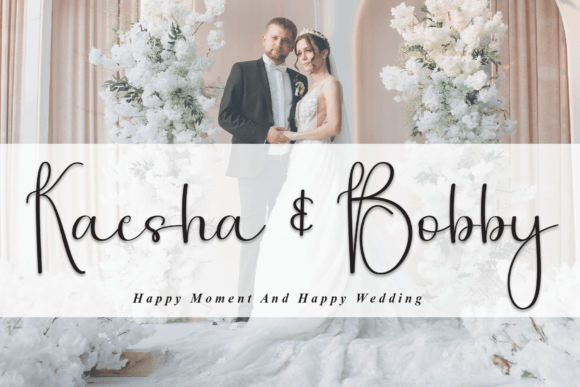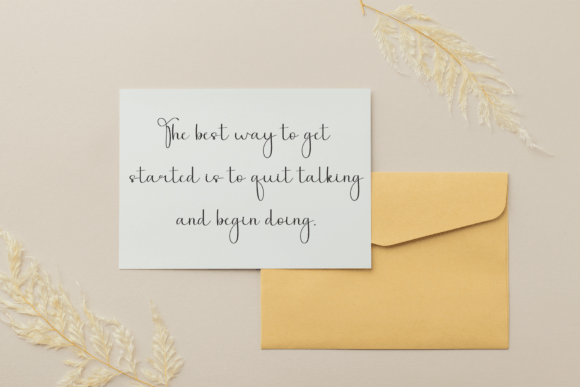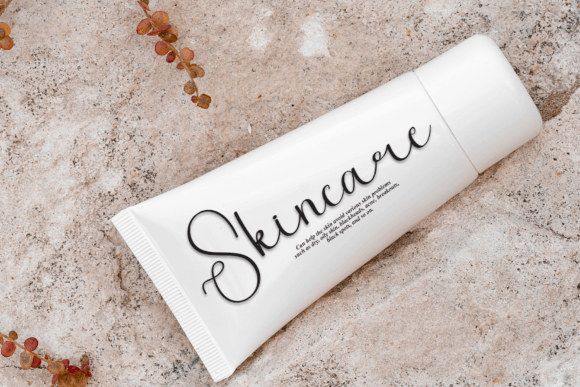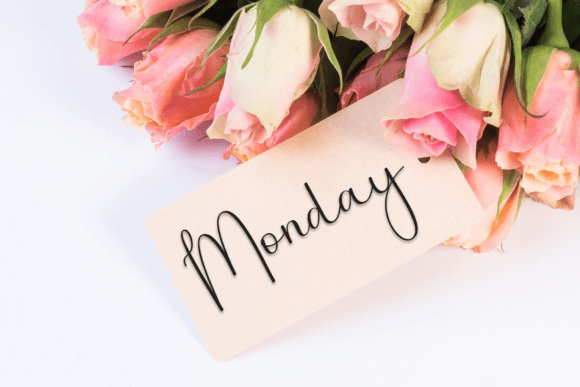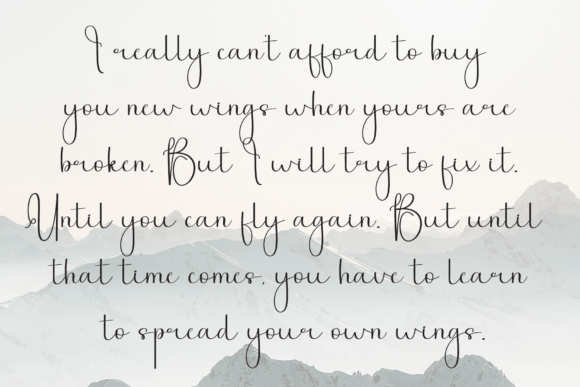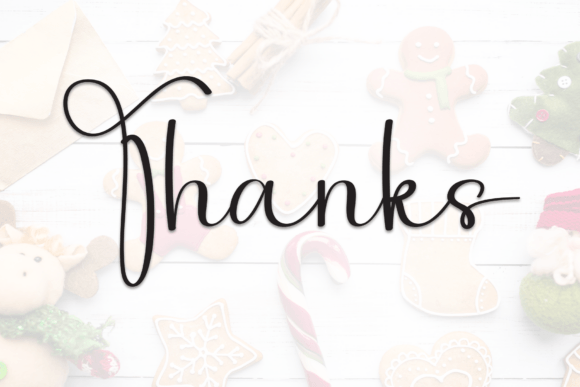
Ginger Bread Font: The Sweetest Addition to Your Design Projects
Are you looking for a font that exudes warmth, friendliness, and a dash of playfulness? Look no further than the Ginger Bread Font, a charming handwritten display font that’s sure to add a touch of whimsy to your design projects. With its unique blend of sweetness and approachability, this font is perfect for designers and crafters seeking to create eye-catching and engaging compositions.
The Charm of Ginger Bread Font
The Ginger Bread Font boasts a delightful combination of cutesy and joyful characteristics, making it an ideal choice for a wide range of design applications. Its handwritten nature gives it a personal and intimate feel, perfect for crafting wedding invitations, greeting cards, and other special occasion materials. The font’s sweet and friendly demeanor is sure to captivate your audience, adding a touch of warmth and personality to your designs.
Perfect for Whimsical Designs
Whether you’re a designer, crafter, or DIY enthusiast, the Ginger Bread Font is the perfect choice for projects that require a dash of fun and playfulness. Its unique charm and character make it an excellent addition to:
- Branding and packaging materials
Key Features of Ginger Bread Font
So, what makes the Ginger Bread Font so special? Here are just a few of its key features:
- Handwritten display font: Giving your designs a personal and intimate feel
- Unique charm and character: Adding a touch of whimsy and playfulness to your compositions
- Cutesy and joyful demeanor: Perfect for crafting eye-catching and engaging designs
- Easy to read and understand: Ensuring your message gets across with clarity and impact
How to Use Ginger Bread Font in Your Designs
Using the Ginger Bread Font in your designs is easy and straightforward. Here are a few tips to get you started:
- Pair with complementary fonts: Combine the Ginger Bread Font with other fonts to create a unique and visually appealing typography
- Experiment with colors and textures: Add depth and interest to your designs with bold colors and textures
- Play with font sizes and styles: Use the Ginger Bread Font in a variety of sizes and styles to create visual hierarchy and emphasis
Get Ready to Fall in Love with Ginger Bread Font
If you’re looking for a font that will add a touch of warmth, personality, and whimsy to your design projects, look no further than the Ginger Bread Font. With its unique charm and character, this font is sure to capture the hearts of designers, crafters, and DIY enthusiasts alike. So why wait? Indulge in the amiability of the Ginger Bread Font today and discover a world of creative possibilities!
In conclusion, the Ginger Bread Font is a charming handwritten display font that’s perfect for designers and crafters seeking to add a touch of sweetness and friendliness to their projects. With its unique charm, cutesy and joyful demeanor, and ease of use, this font is sure to become a favorite in your design toolkit. So go ahead, get creative, and indulge in the amiability of the Ginger Bread Font!